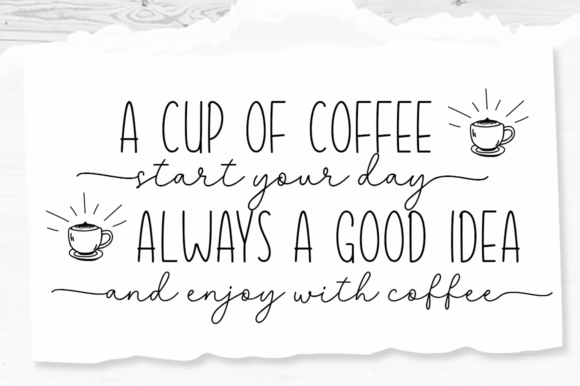
Creativity Font
Creativity is a versatile duo handwritten font. It is the best choice for creating eye catching logos, branding and quotes. Every letter has a unique and beautiful touch, which will make your design come alive!